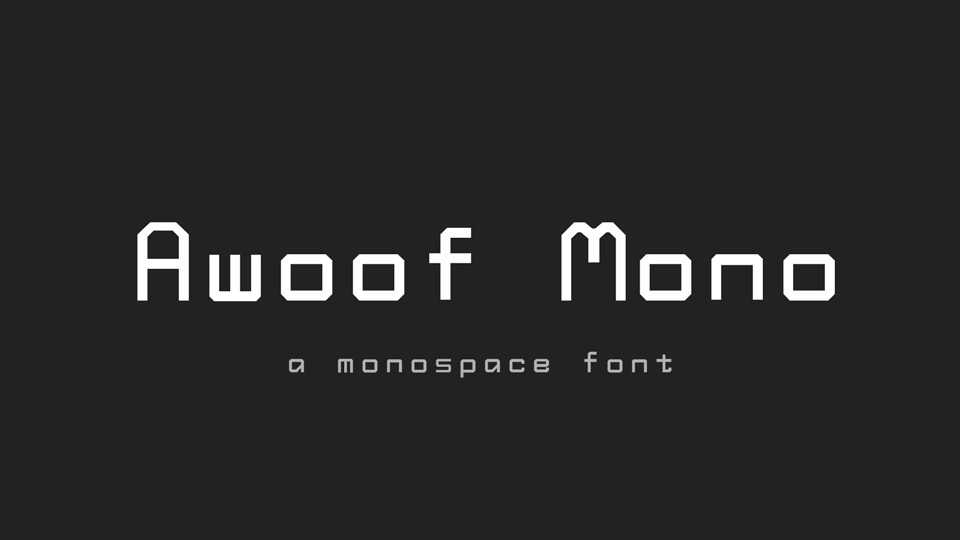
Download Awoof font, a monospace typeface with geometric appearance. Its clean and angular shapes provide a robust design. Awoof is perfect for digital products, tech projects and other display use.
Designer: Ellen Marie Dash